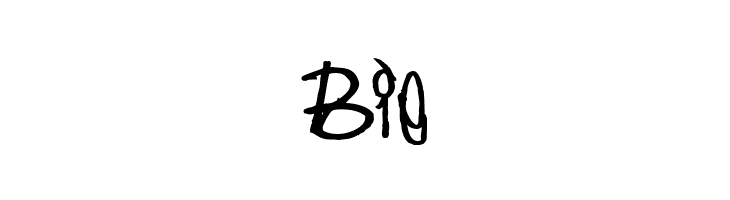
Baar Antropos Display Font
A bold, dynamic font with a playful, hand-crafted appearance.
Some's Style Bold Font
A bold, graffiti-inspired handwritten font with dynamic, expressive strokes.
Baar Philos Bold Font
A bold, modern font with clean lines and a slightly condensed form.
Sweden Funkis StraightOutlined Font